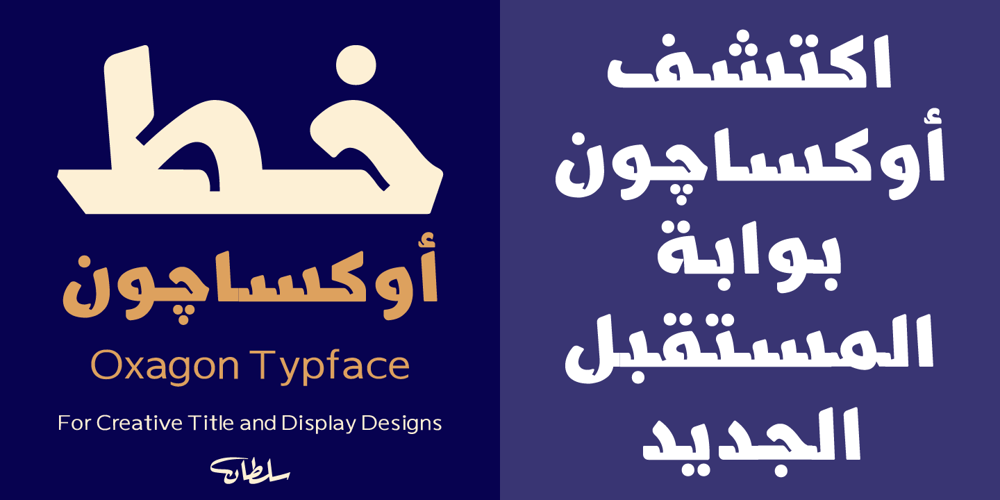
SF Oxagon
SF Oxagon font
SF Oxagon Font Family was designed by Sultan Maqtari and published by Sultan Fonts. SF Oxagon contains 4 styles and family package options. Oxagon: A Modern, Active Arabic Font That Elevates Your Work to a New LevelDiscover the beauty of Oxagon font, one of the latest projects from Sultan Fonts Studio, featuring 4 diverse styles to meet all your printing and creative needs.Trojena Font Features: Modern, Active Variable Font: Adds a modern touch to your work and captures the reader’s attention. Complete with a Flexible Layout Range for Responsive Designs: Allows you to create consistent designs across all screens. Clear and Readable in Small Sizes: Ideal for printing, large text, web pages, and other visual uses. Supports Arabic and Latin Languages: Allows you to communicate with a wider audience internationally. Features Extension Features for Many Arabic Letters: Adds an aesthetic touch to the text and improves readability. Details of the Four Styles: Oxagon Regular: This is the thinnest style of the font, giving the font a lively and smooth appearance. Oxagon Medium: This is the basic style of the font and is characterized by its clarity and readability. Oxagon Bold: This is a more bulky style than the regular style and is suitable for uses that require more space. Oxagon Black: This is a denser style than the bold style and adds a touch of luxury to the text. Oxagon Font Uses: Printing: Such as advertisements, magazines, and books. Web: Such as websites and applications. Graphic Design: Such as logo and branding design. Presentations: Such as business or educational presentations. In addition, Oxagon Font offers additional features that enhance your creativity, such as: Alternative Sets: Allow you to change the shape of some letters to get a unique look. Ligatures: Improve text flow and make it more aesthetically pleasing. Proportional Numbers: Add a professional touch to your designs. Don’t hesitate to try Oxagon Font today and elevate your work to a new level of beauty and distinction!